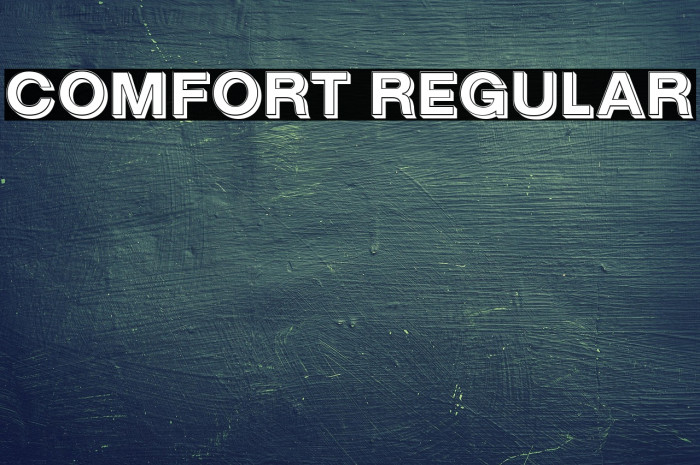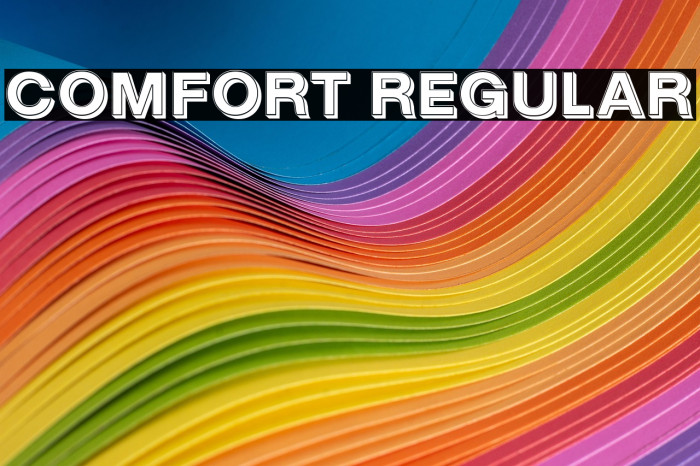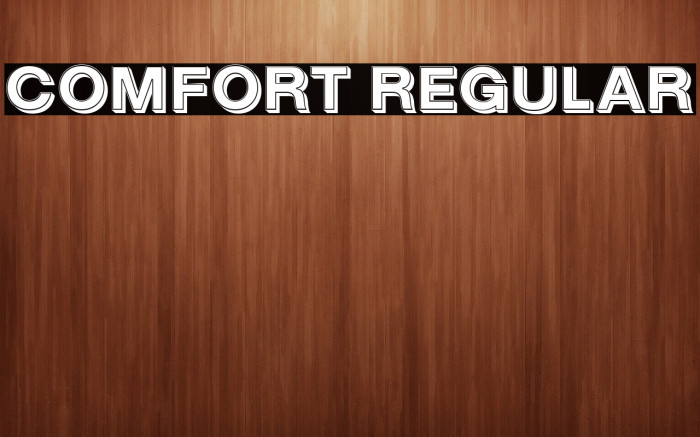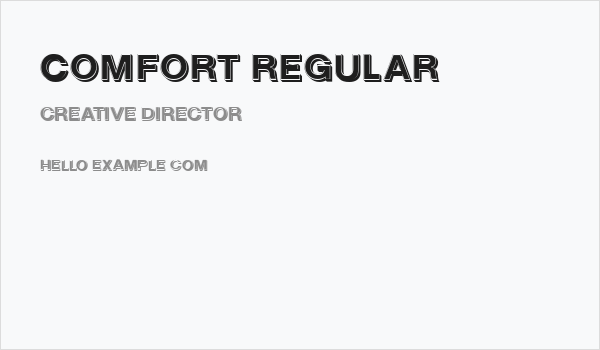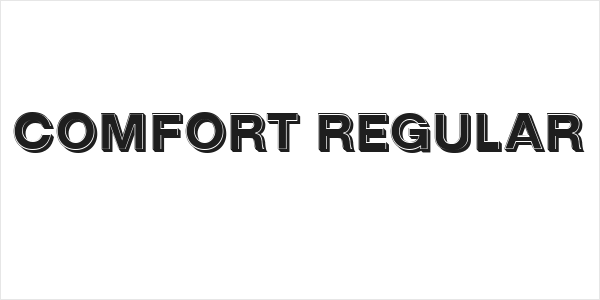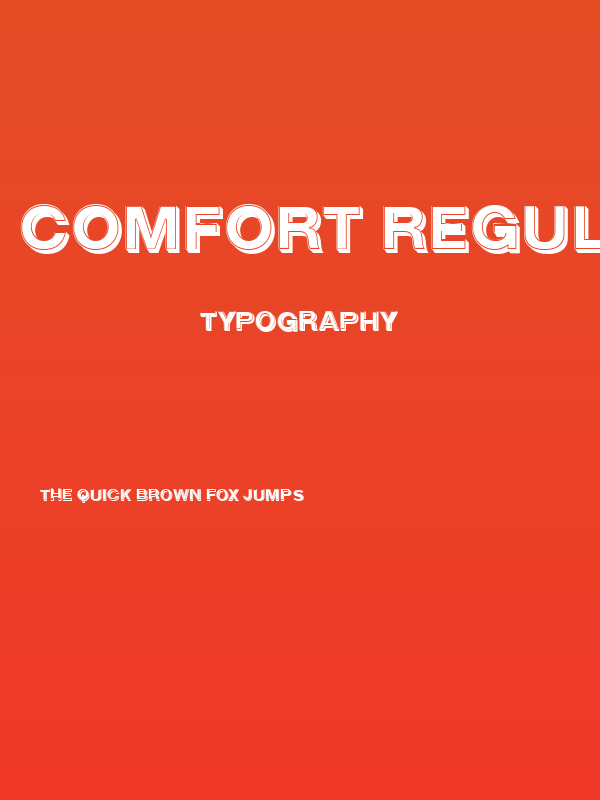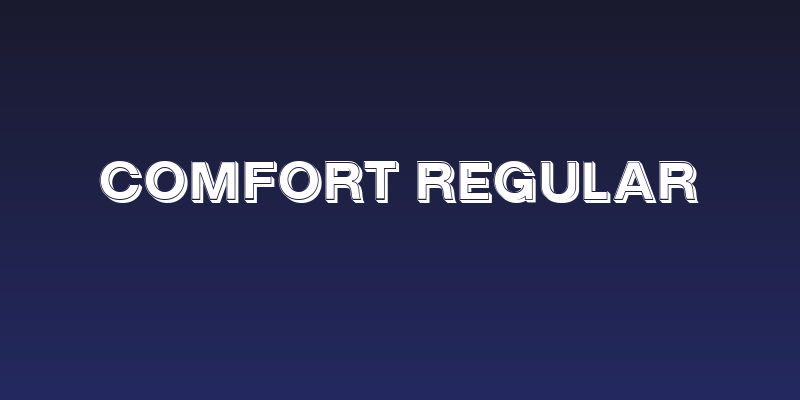
Comfort Regular Font
Comfort Regular Description
This font features a bold, geometric style with a strong presence. The characters are outlined, creating a layered effect that adds depth and dimension. The uppercase letters are uniform in height, with consistent stroke widths that emphasize a modern aesthetic. The design is clean and structured, making it suitable for impactful headlines and titles. The font's unique outline style gives it a distinctive look, perfect for projects that require a bold statement.
| Proposed Projects | Ideal for branding, posters, headlines, and any design needing a strong visual impact. |